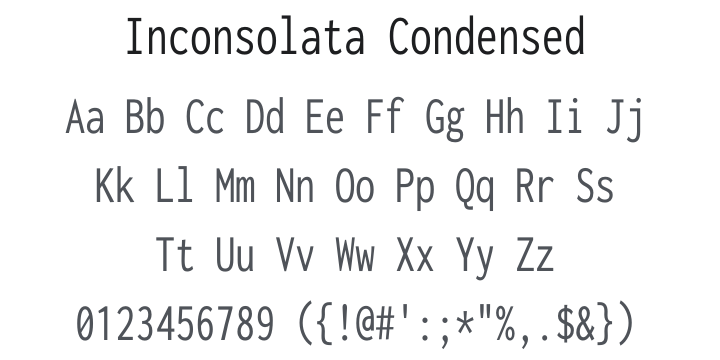
Inconsolata Condensed Font Family
by Raph Levien
About Inconsolata Condensed
Inconsolata was Raph Levien's first serious original font release. It is a monospace font, designed for printed code listings and the like. There are a great many “programmer fonts,” designed primarily for use on the screen, but in most cases do not have the attention to detail for high resolution rendering.
Inconsolata draws from many inspirations and sources. I was particularly struck by the beauty of Luc(as) de Groot's Consolas, which is his monospaced design for Microsoft's Vista release. This font, similar to his earlier TheSansMono, demonstrated clearly to me that monospaced fonts do not have to suck.
The development of the Regular style by Raph Levien was started in 2006 using his own Spiro-based tools and FontForge. The Bold style was designed by Kirill Tkachev and the Cyreal foundry in 2012.
The Inconsolata family includes (Normal, Condensed and Expanded).